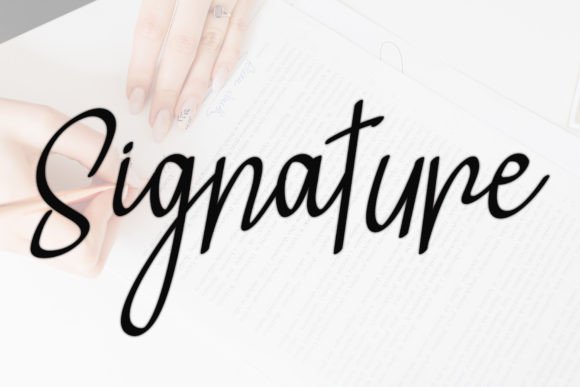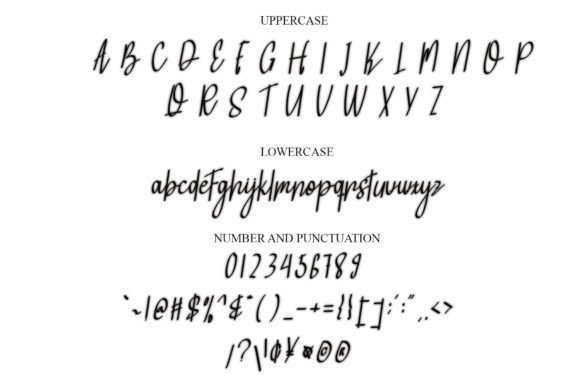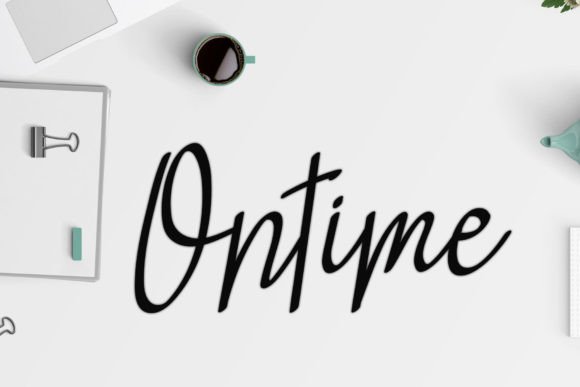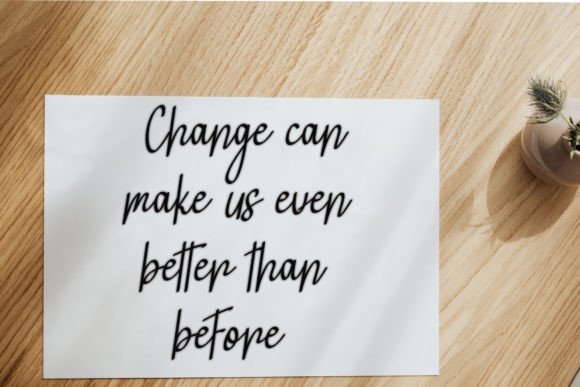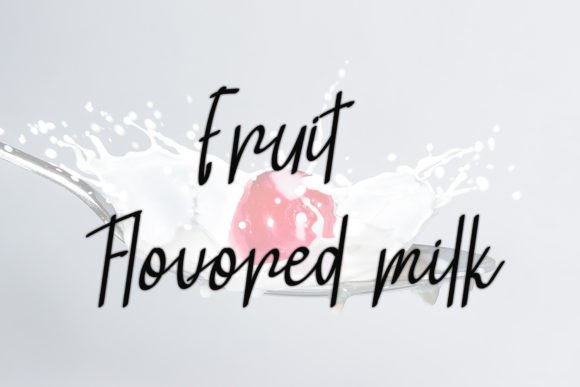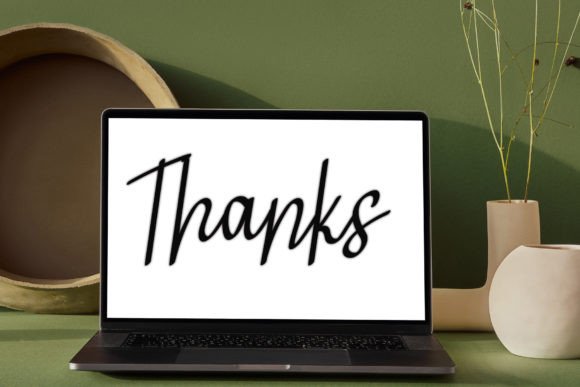
Unwrap the Magic of the Holiday Season with Holiday Font
As the snowflakes start to fall and the festive lights twinkle, creatives everywhere are scrambling to find the perfect font to capture the essence of the holiday season. It’s that moment when you finally stumble upon the perfect typography, and your design project comes to life.
Enter Holiday Font, a stunning handwritten font that embodies the spirit of the season. With its contemporary atmosphere and impeccable form, it’s the perfect addition to any design project. Inspired by timeless classic calligraphy, Holiday Font adds a touch of elegance and class to your work, making it a valuable asset for designers.
Whether you’re designing holiday cards, gift tags, or social media graphics, Holiday Font is sure to make your projects stand out from the crowd. Its versatility and sophistication make it a must-have for any designer looking to add a touch of holiday magic to their work.
Holiday Font Key Features
- Unique Characteristics: Holiday Font features a festive and playful design, with intricate details and ornaments that evoke a sense of joy and celebration.
Holiday Font Review
I recently had the chance to work with the “Holiday Font” and I must say it’s a unique addition to any project. ✨ One thing that really stands out is its festive feel, making it perfect for holiday-themed designs. The font is full of character and adds a fun touch to any project.
Another great aspect of the Holiday Font is its versatility. It can be used for a variety of applications, from advertisements to social media posts. The font is also highly customizable, allowing you to adjust the size, color, and style to fit your needs.
While the Holiday Font has many great qualities, there are a few limitations to consider. ⚠️ One of the main issues is its lack of legibility at smaller font sizes. This can make it difficult to read in certain situations.
Another limitation is the font’s limited character set. While it’s perfect for holiday-themed designs, it may not be the best choice for more general projects.
Overall, I would say the Holiday Font is a great addition to any designer’s toolkit. While it has its limitations, its unique feel and versatility make it a great choice for holiday-themed projects.
Design Considerations
- Use the font at larger sizes for better legibility
- Be mindful of the font’s limited character set
- Experiment with different styles and customizations to get the most out of the font
Practical Application Guide: Holiday Font
The Holiday Font is perfect for:
- Holiday greeting cards and invitations.
- Seasonal marketing materials and advertisements.
- Wedding and party invitations.
- Christmas and New Year’s Eve decorations and signage.